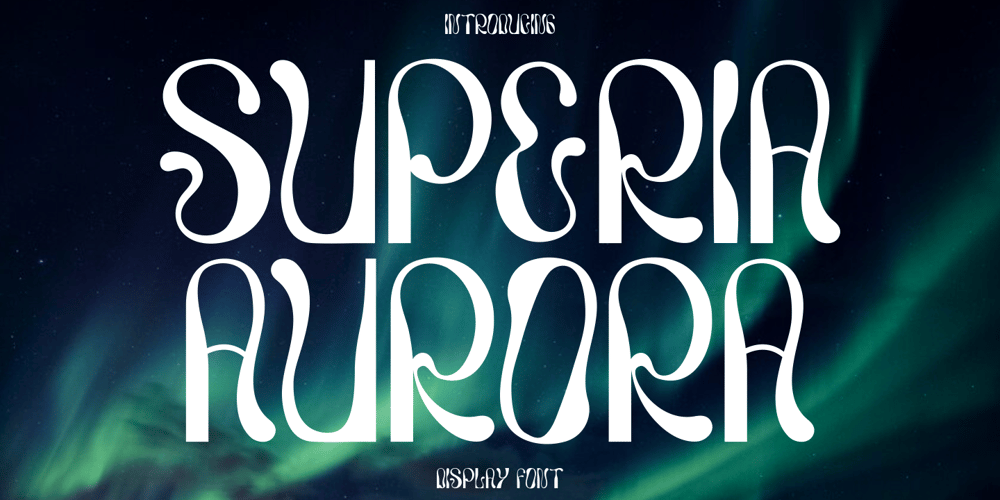
Superia Aurora Font Family was designed by Putra Novembria Candra Kusuma and published by Putracetol. Superia Aurora contains 1 styles and family package options. Introducing Superia Aurora – a unique and modern display font that brings a classic, fun, and trendy impression to your designs. This font features various styles, including ligatures, making it even more unique and distinct. Superia Aurora is inspired by elegant typefaces and posters with display themes, making it perfect for a wide range of display purposes, such as album covers, posters, labels, t-shirts, apparel, signage, quotes, logos, greeting cards, logotypes, and more. It also supports multi-language characters, making it accessible for designers around the world.Superia Aurora offers alternative characters that are divided into several Open Type features, including Swash, Stylistic Sets, Stylistic Alternates, Contextual Alternates, and Ligatures. These features can be easily accessed using Open Type savvy programs like Adobe Illustrator, Adobe InDesign, Adobe Photoshop, Corel Draw X version, and Microsoft Word. This allows you to customize and create unique lettering compositions that suit your design needs, giving you ample options for creative exploration.In your zip package, you’ll find the Superia Aurora font files in otf, ttf, and woff formats, providing versatility for different design projects. The font includes uppercase and lowercase letters, numerals, punctuation, and symbols, ensuring that you have all the elements you need for your designs.Superia Aurora is also designed to support multi-language characters, making it suitable for designing in different languages. Whether you’re creating designs in English, Spanish, French, or any other language, Superia Aurora has got you covered.In summary, Superia Aurora is a unique and modern display font that offers a variety of styles and Open Type features for customization. With its multi-language support and versatile design options, Superia Aurora is perfect for various display purposes. So, unleash your creativity with Superia Aurora and create eye-catching designs that stand out and make a statement! Thank you for choosing Superia Aurora from our collection. Happy designing!